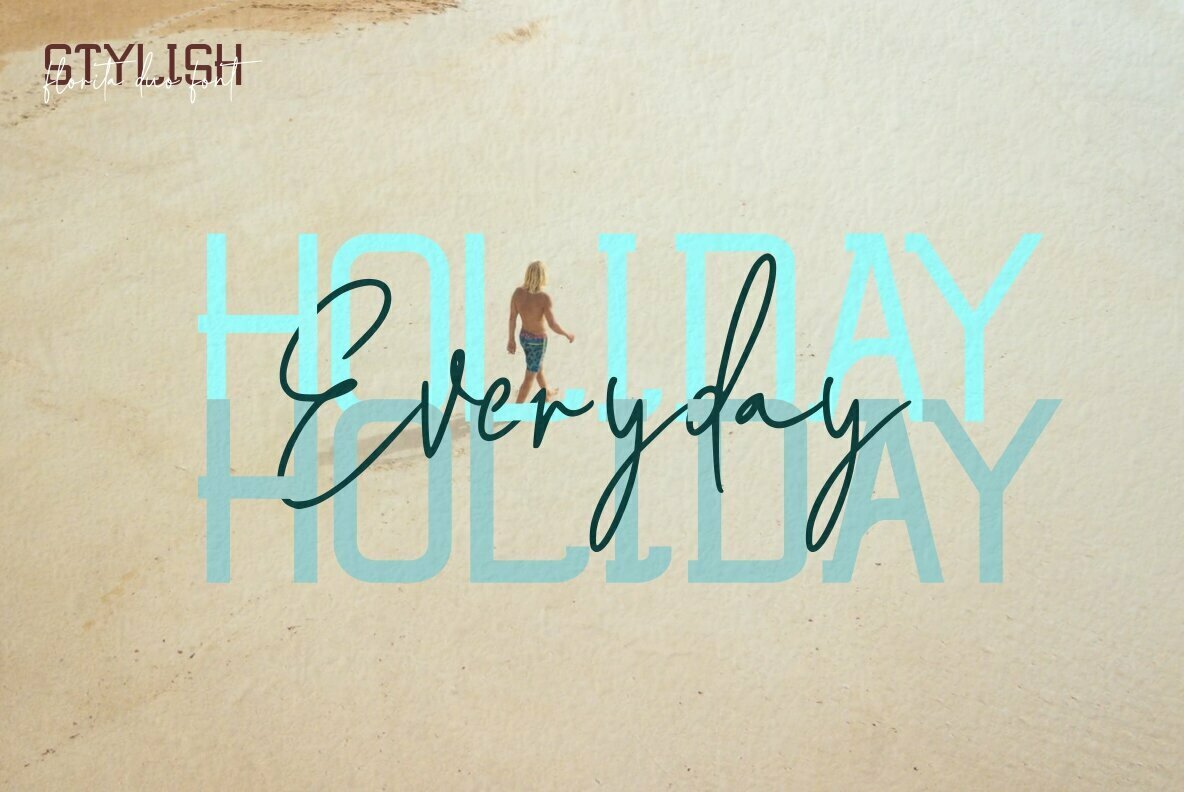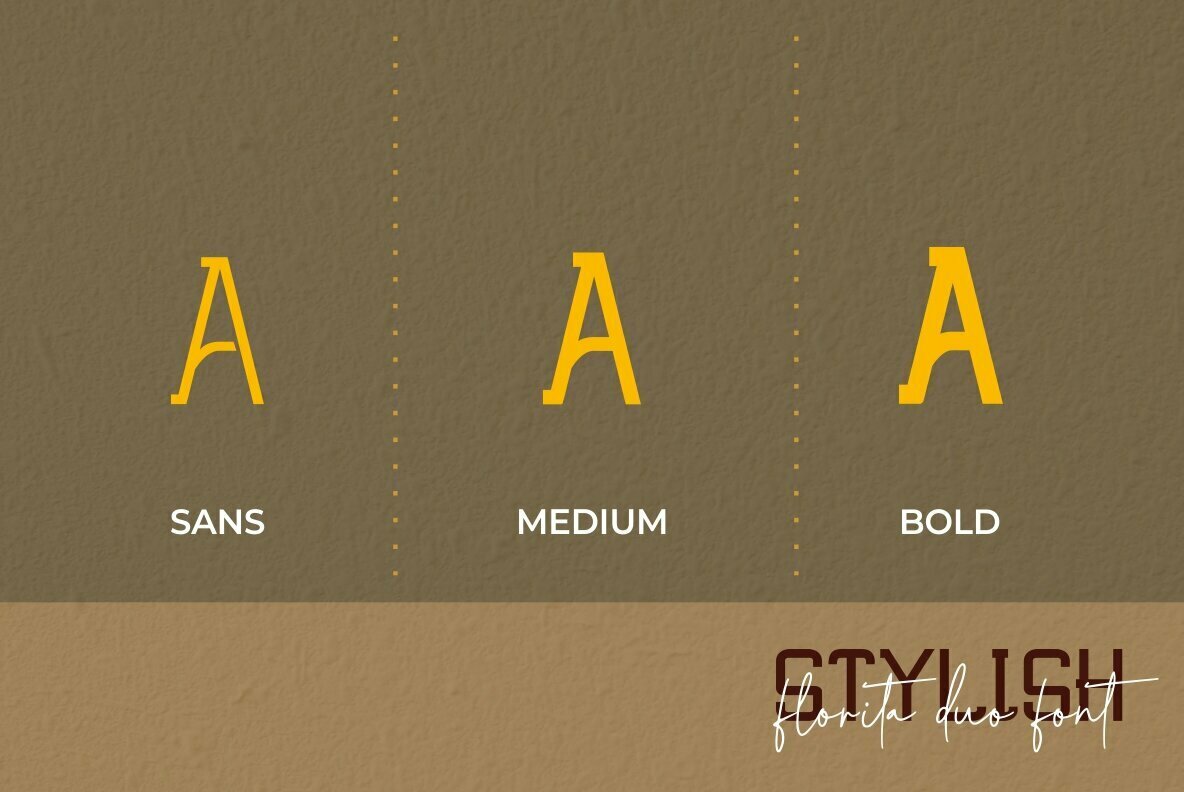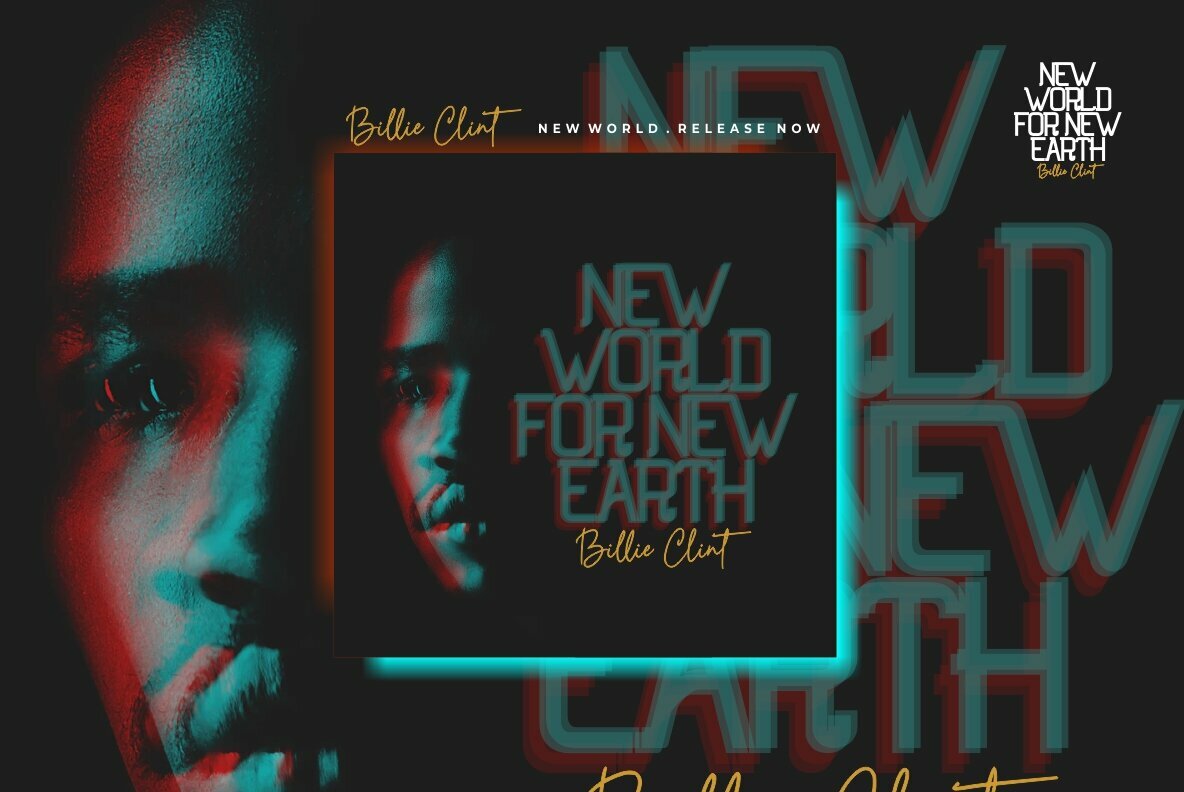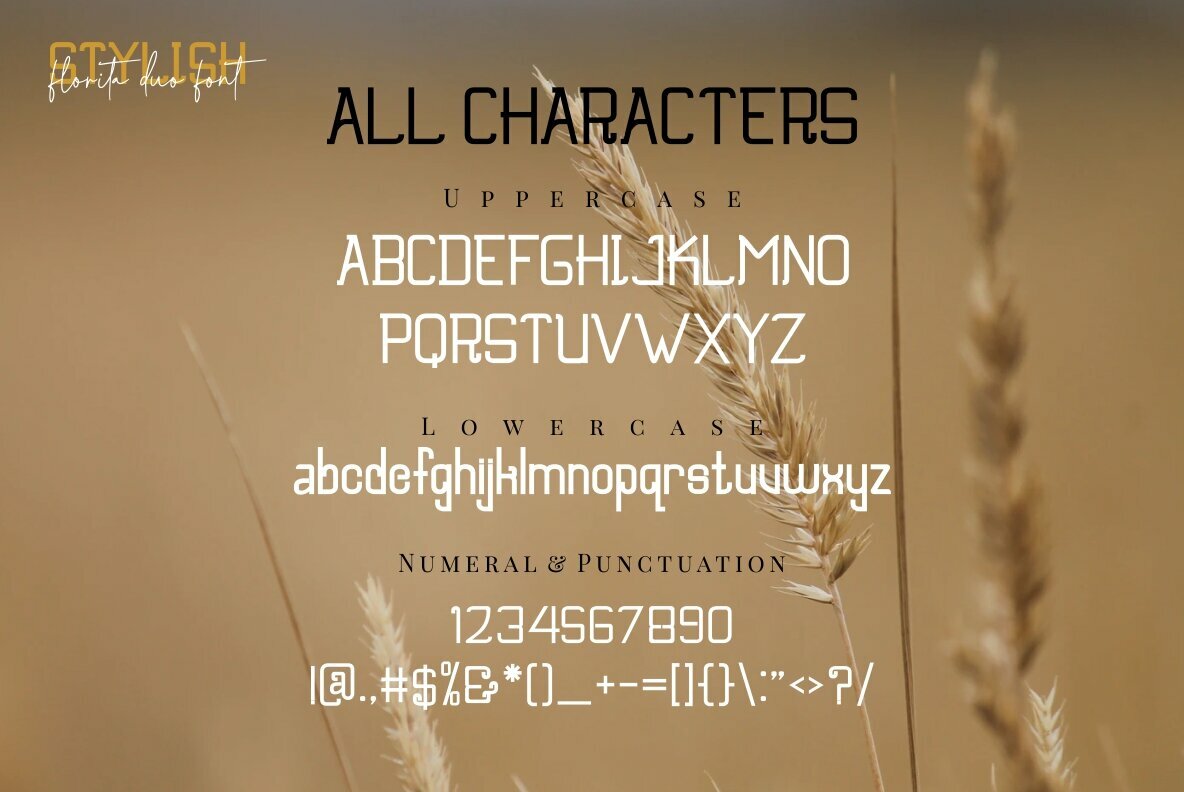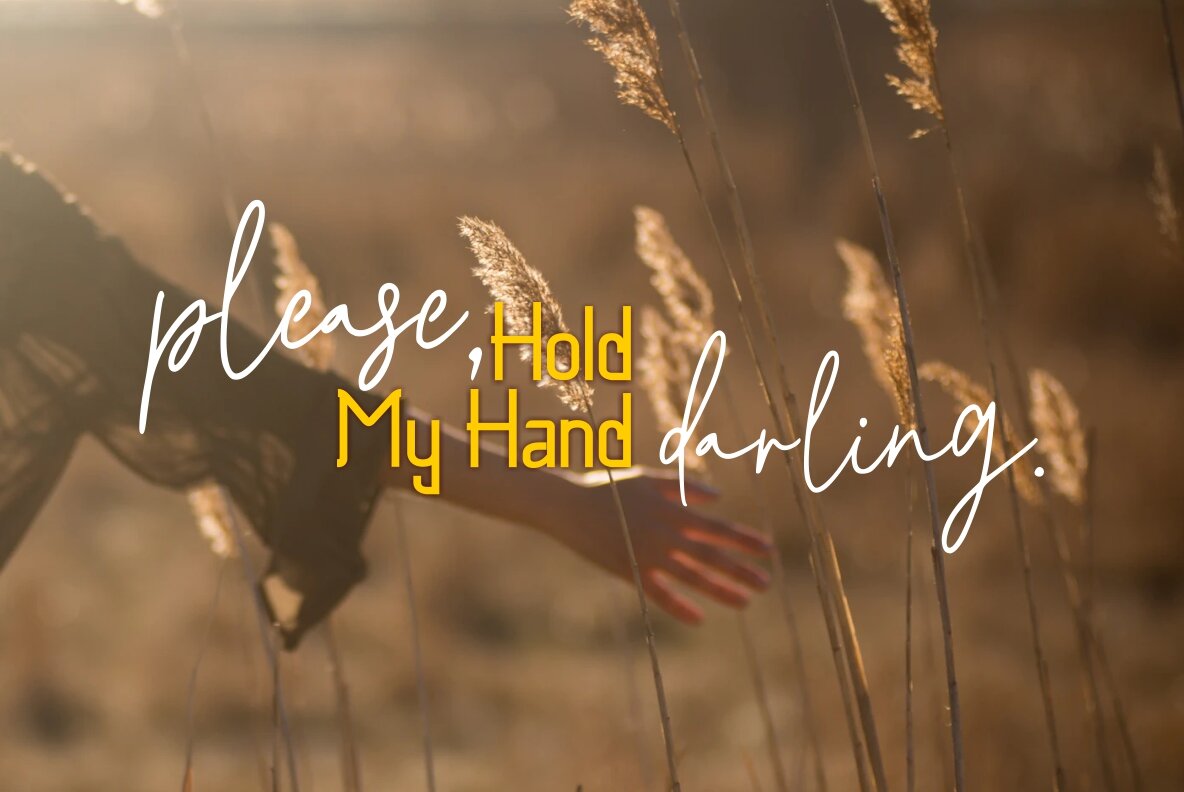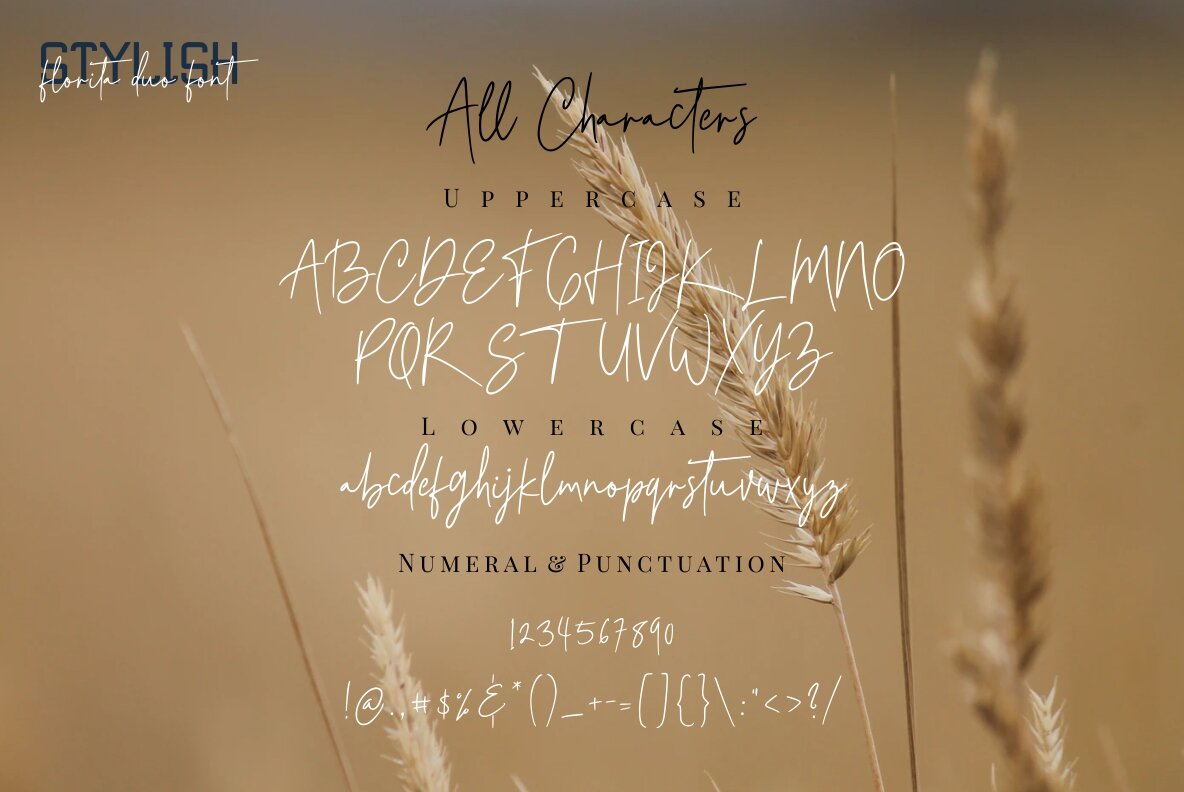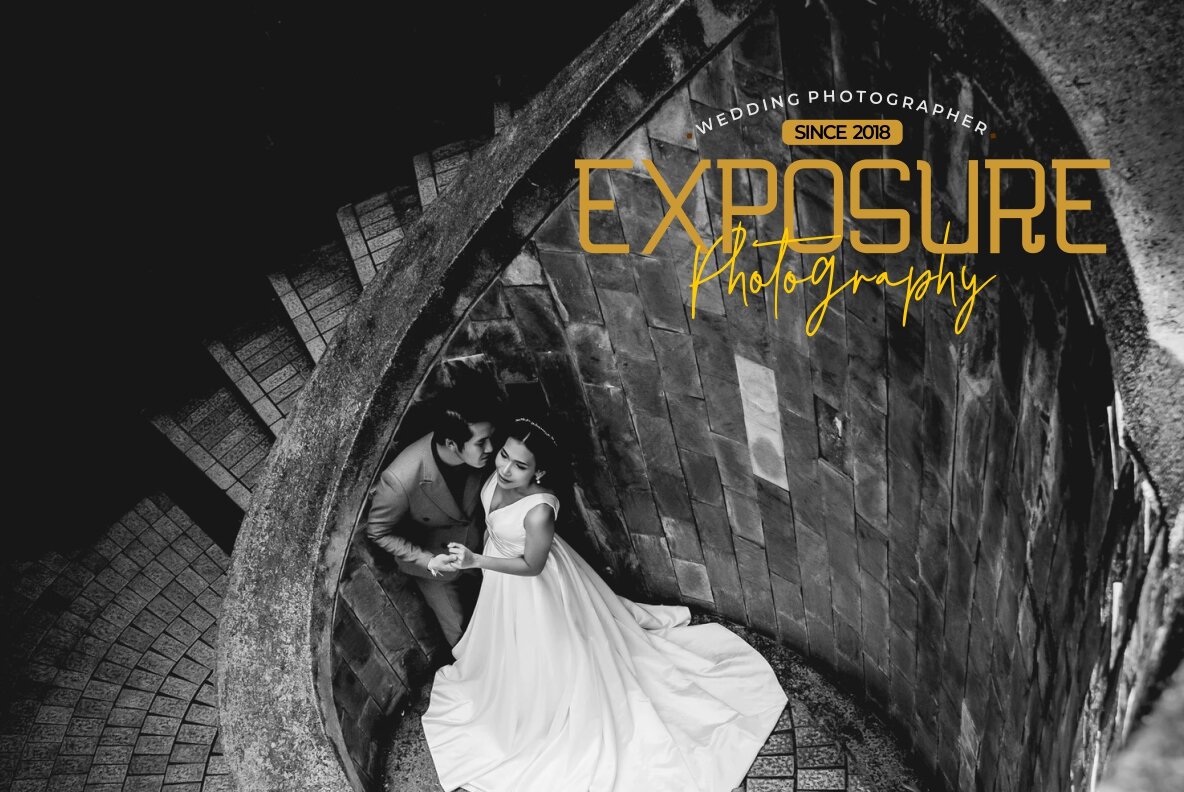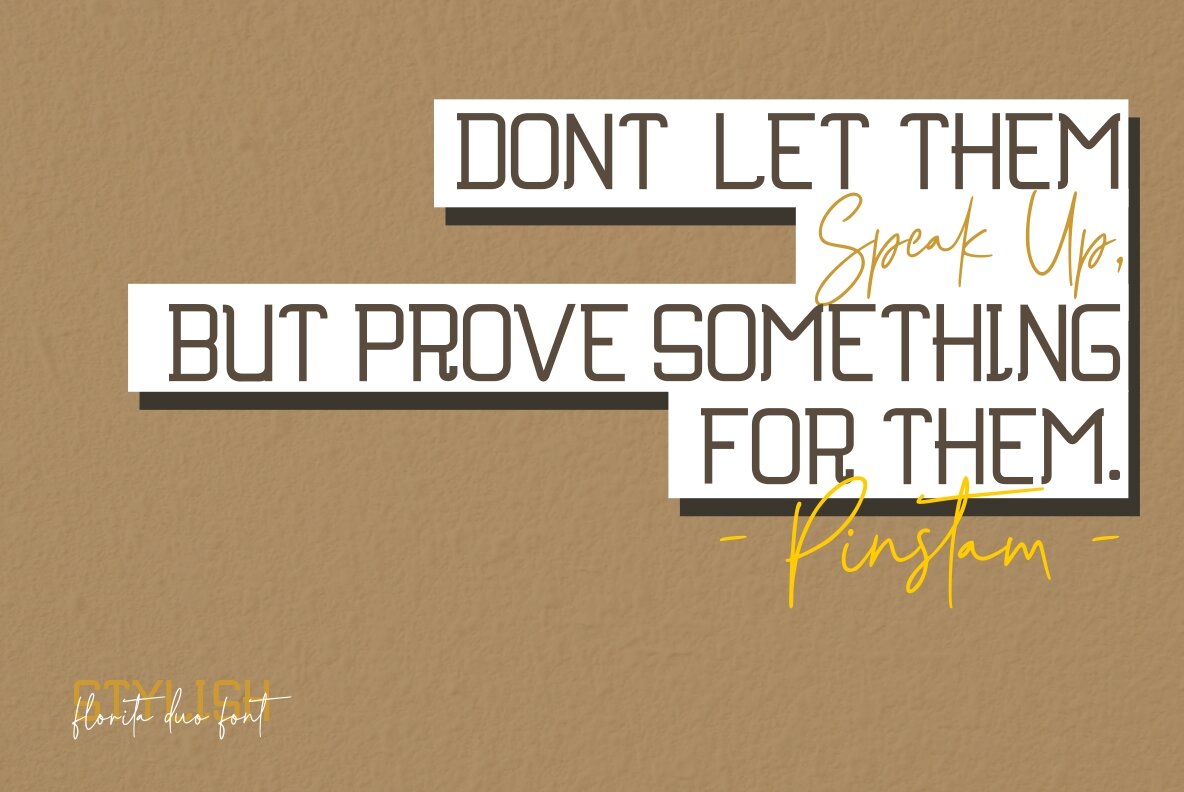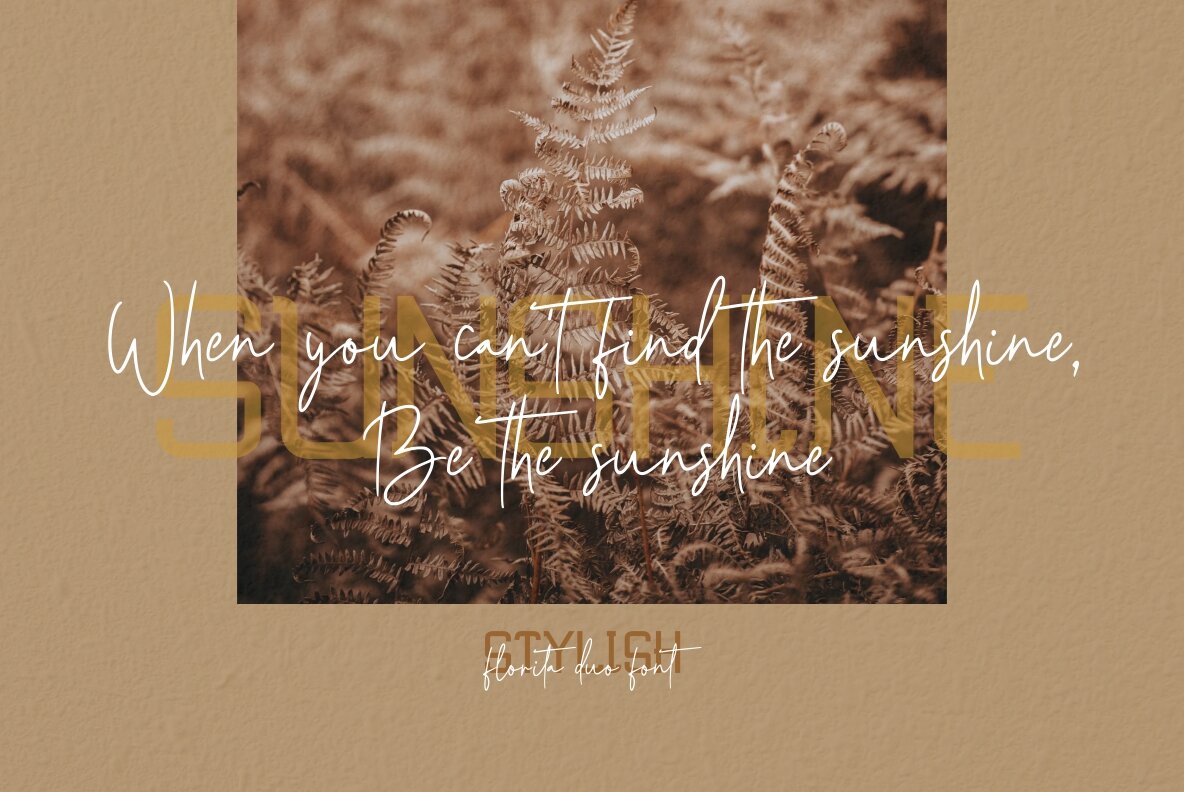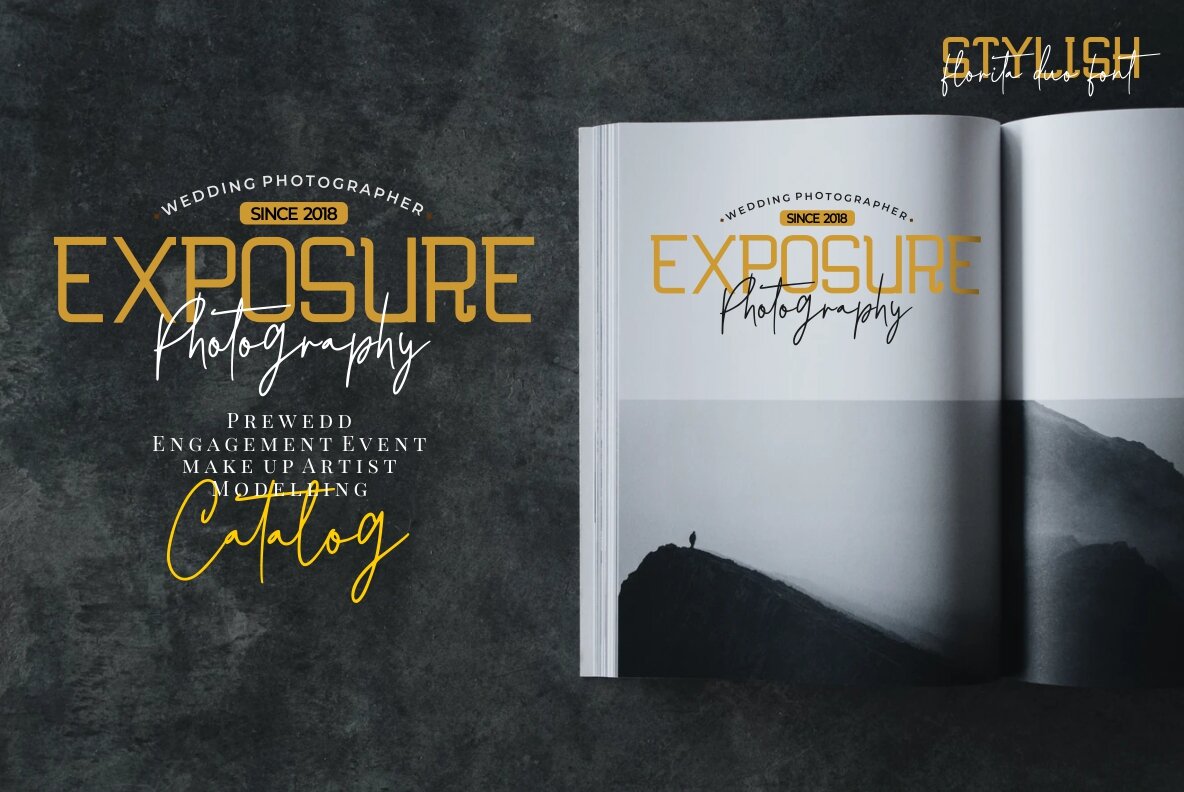
Florita - Font Duo
Florita Sans Medium
Florita Sans Bold
Florita Sans
Florita Signature
Florita, a font duo comprising a modern sans serif and a signature typeface, offers an ideal blend for various design needs. Whether you're working on branding, packaging design, or social media graphics, Florita's complementary styles effortlessly mix to enhance your creative projects. This duo is well-suited for a variety of applications, including signature works, weddings, logos, typography quotes, magazine or book covers, and more. Florita harmonizes sophistication with simplicity, making it a versatile choice for those seeking elegance and modernity in design.Florita: A Charming Font Duo for Versatile Design